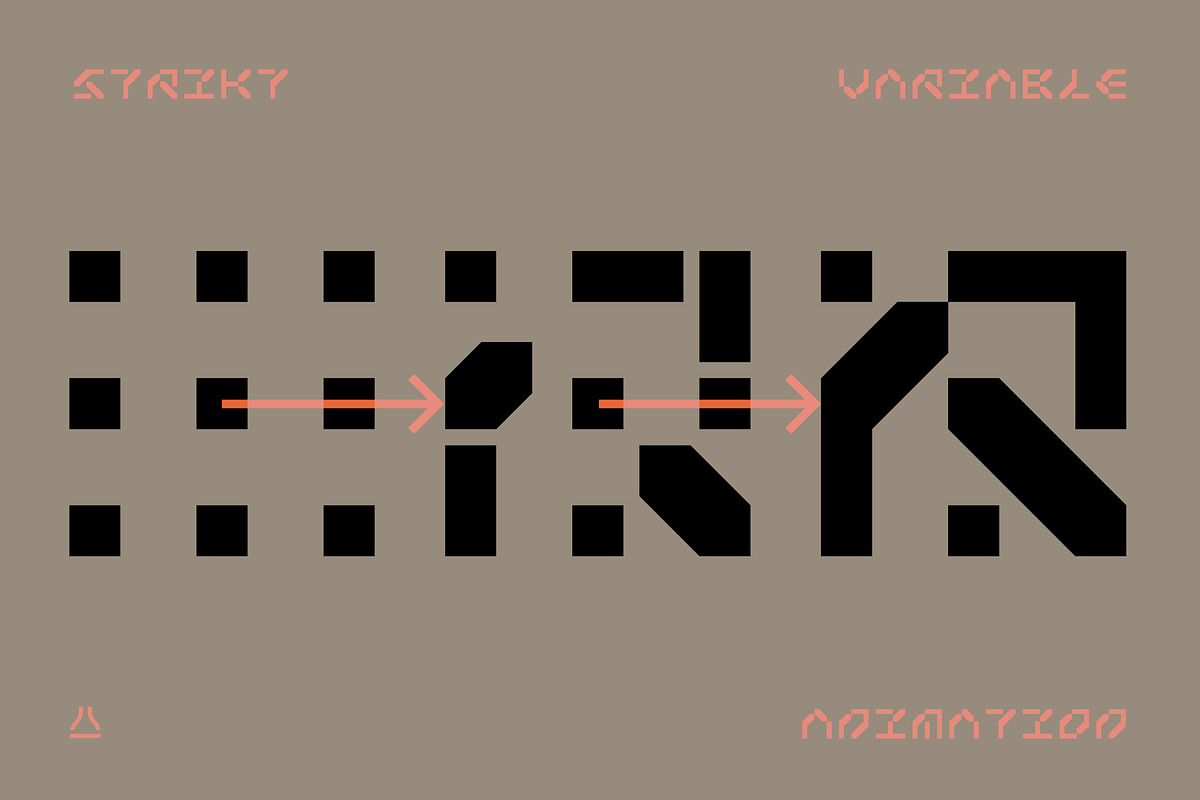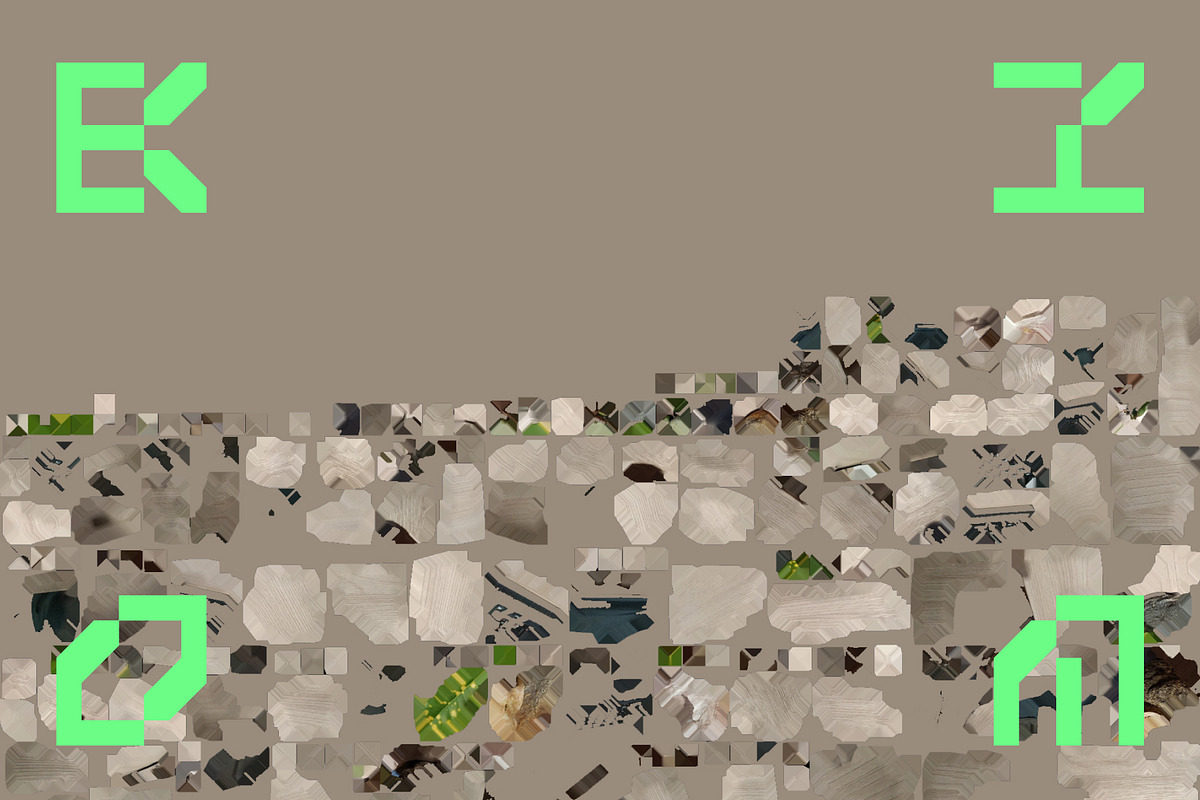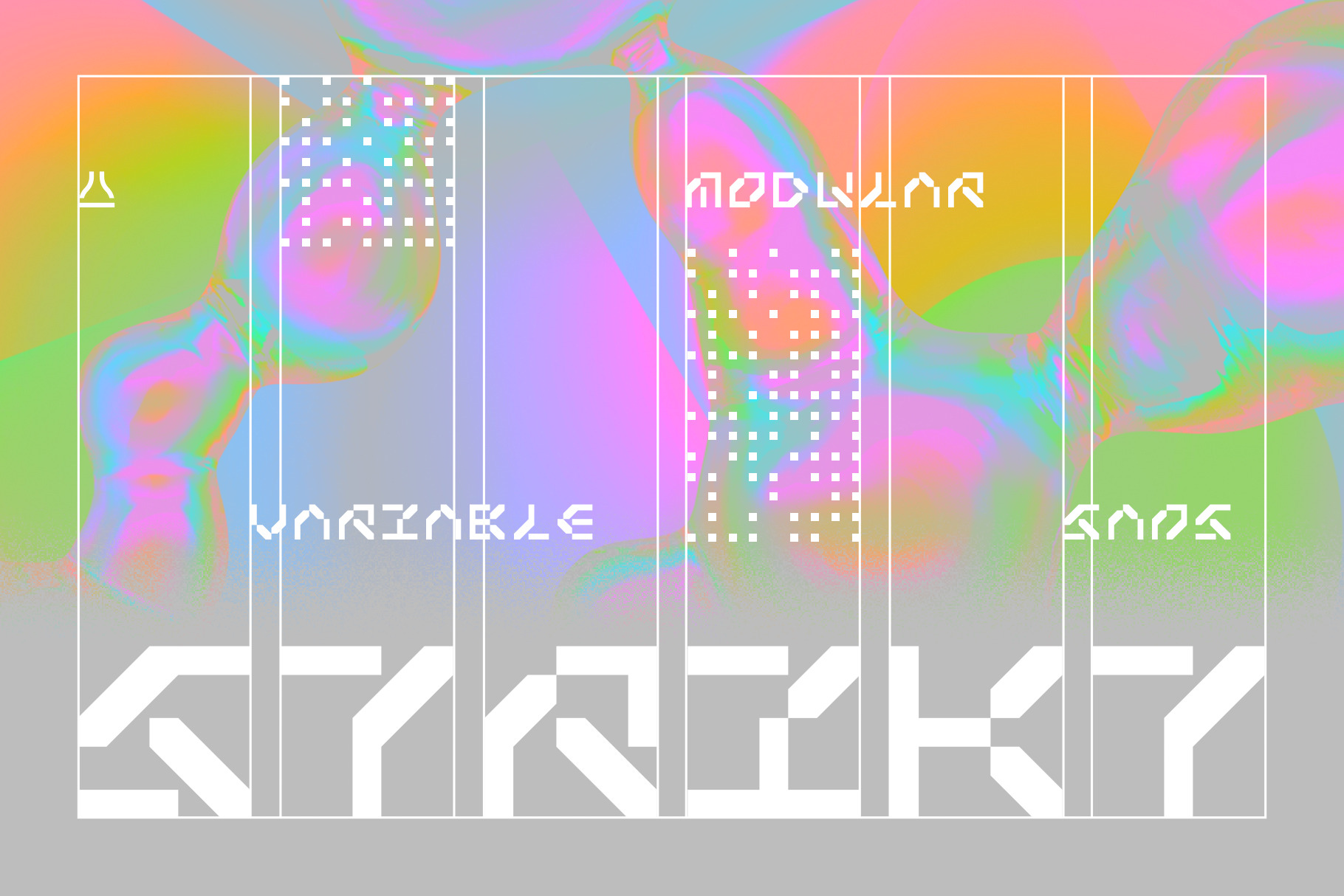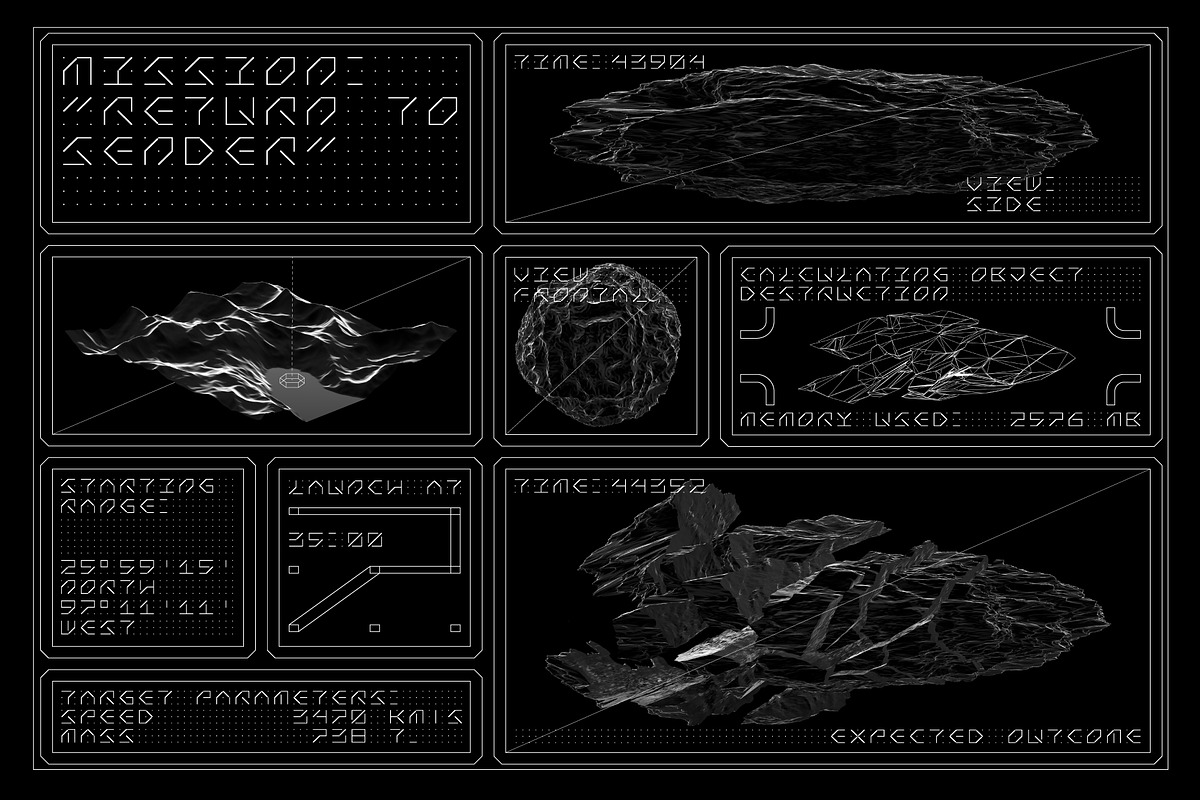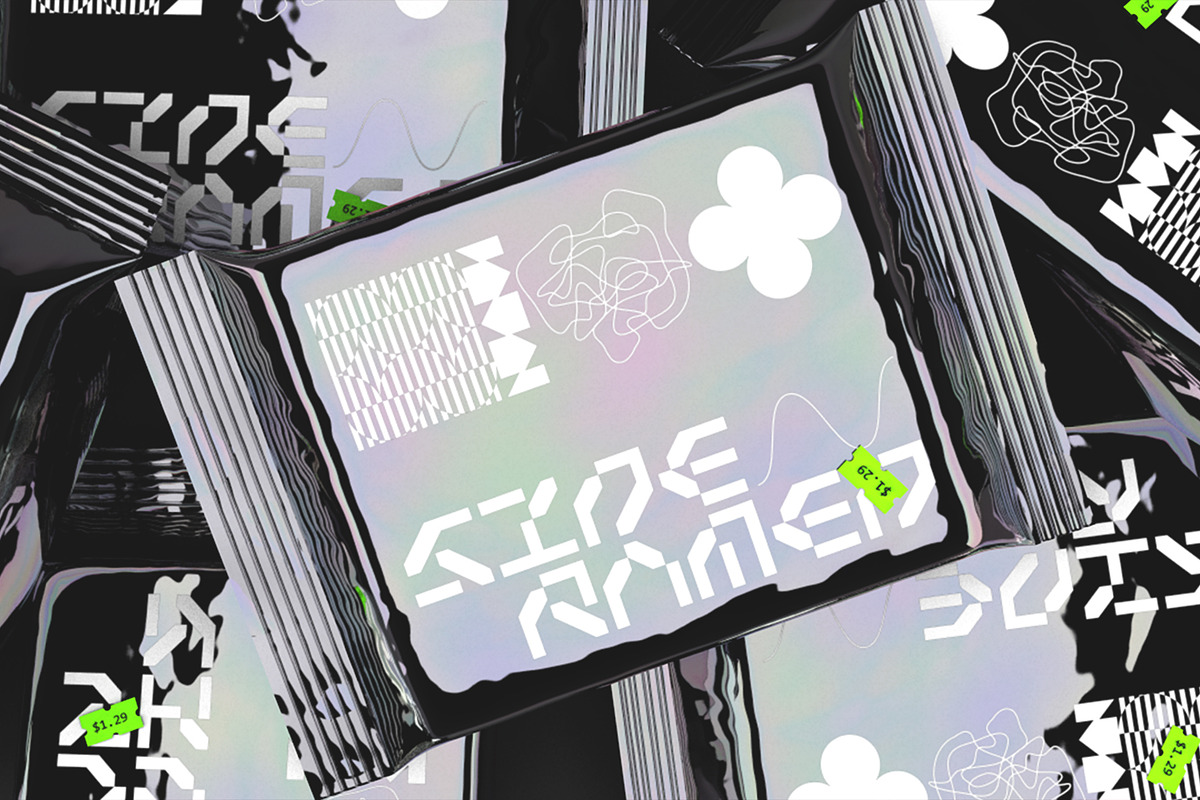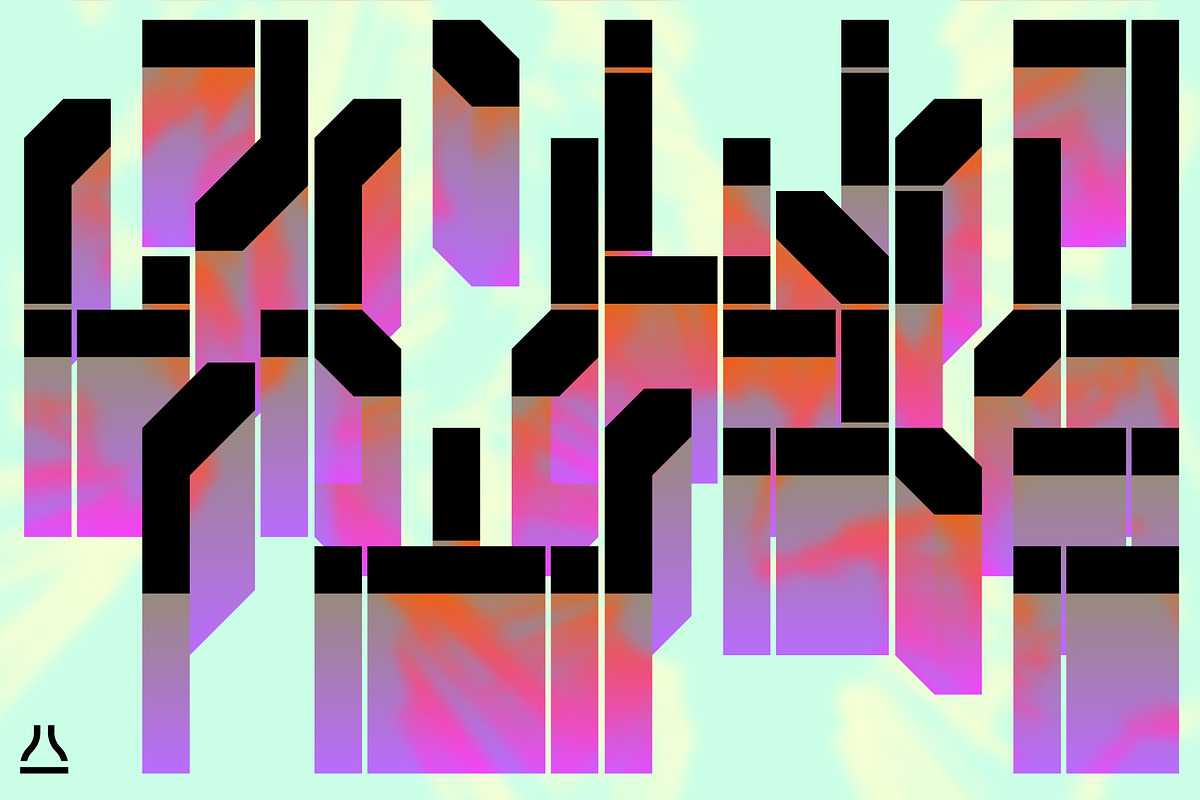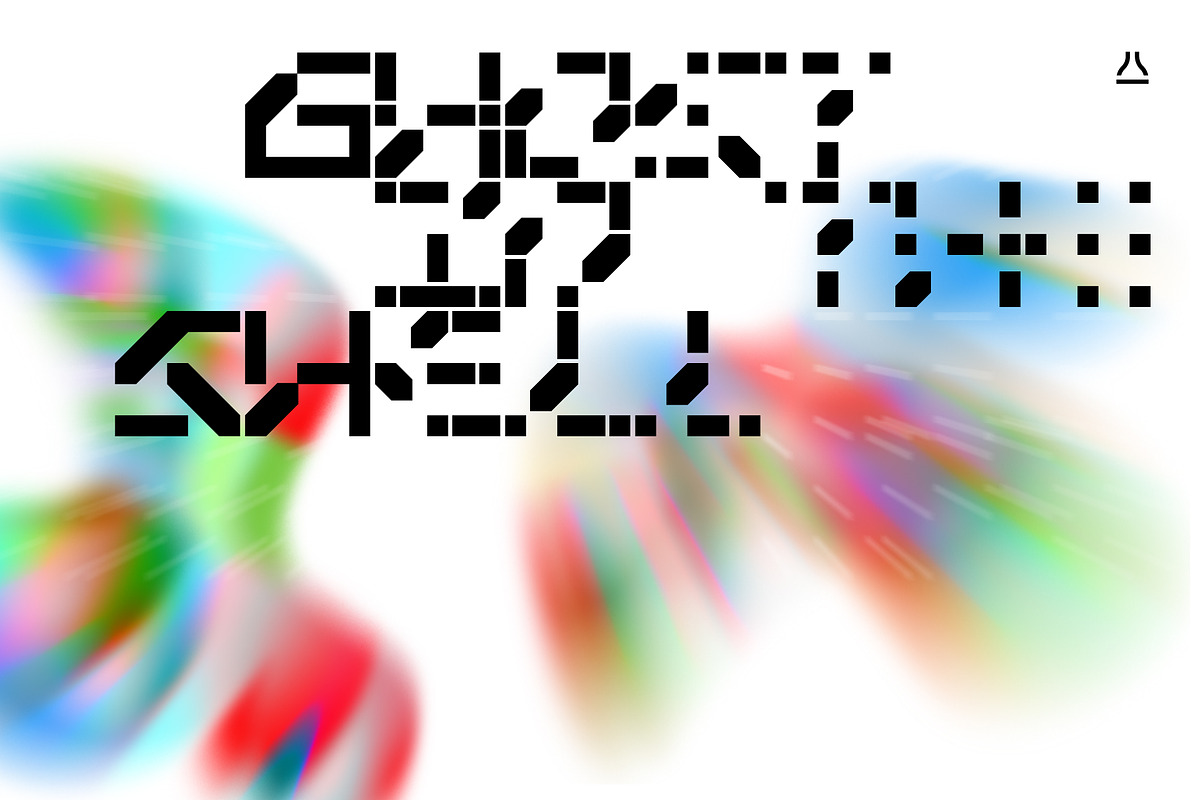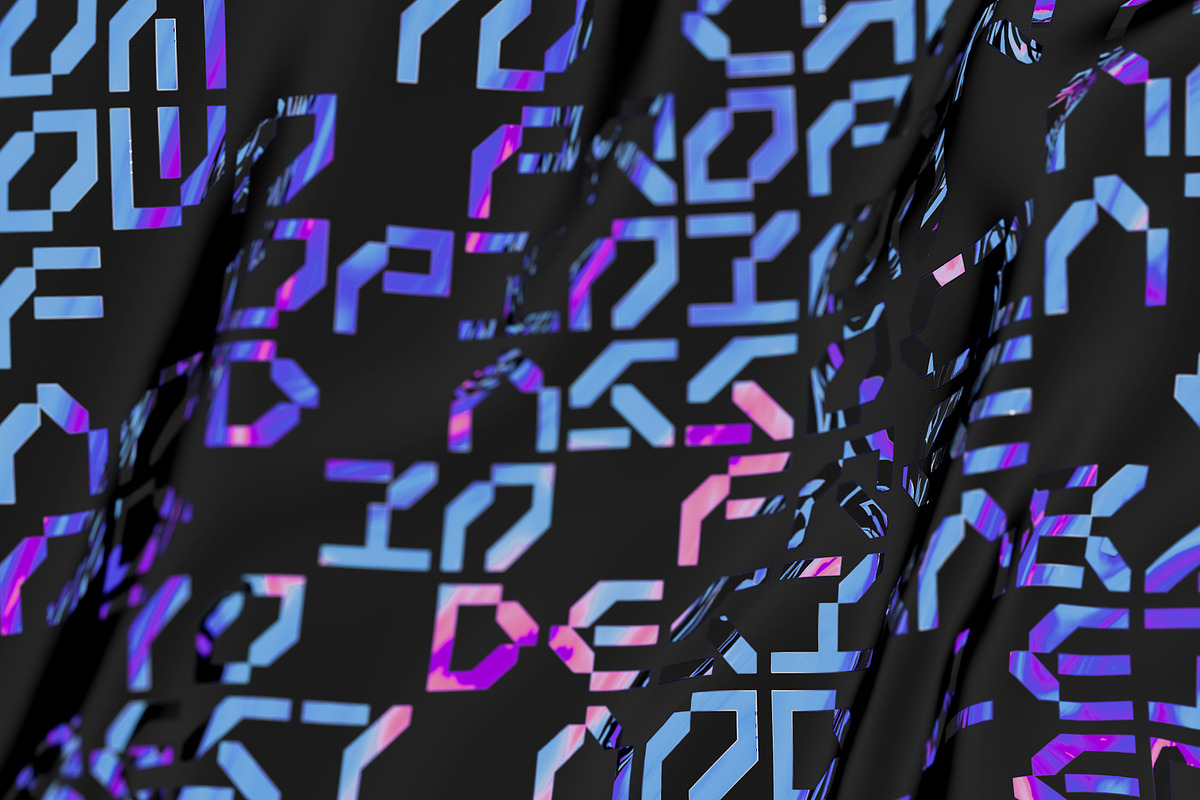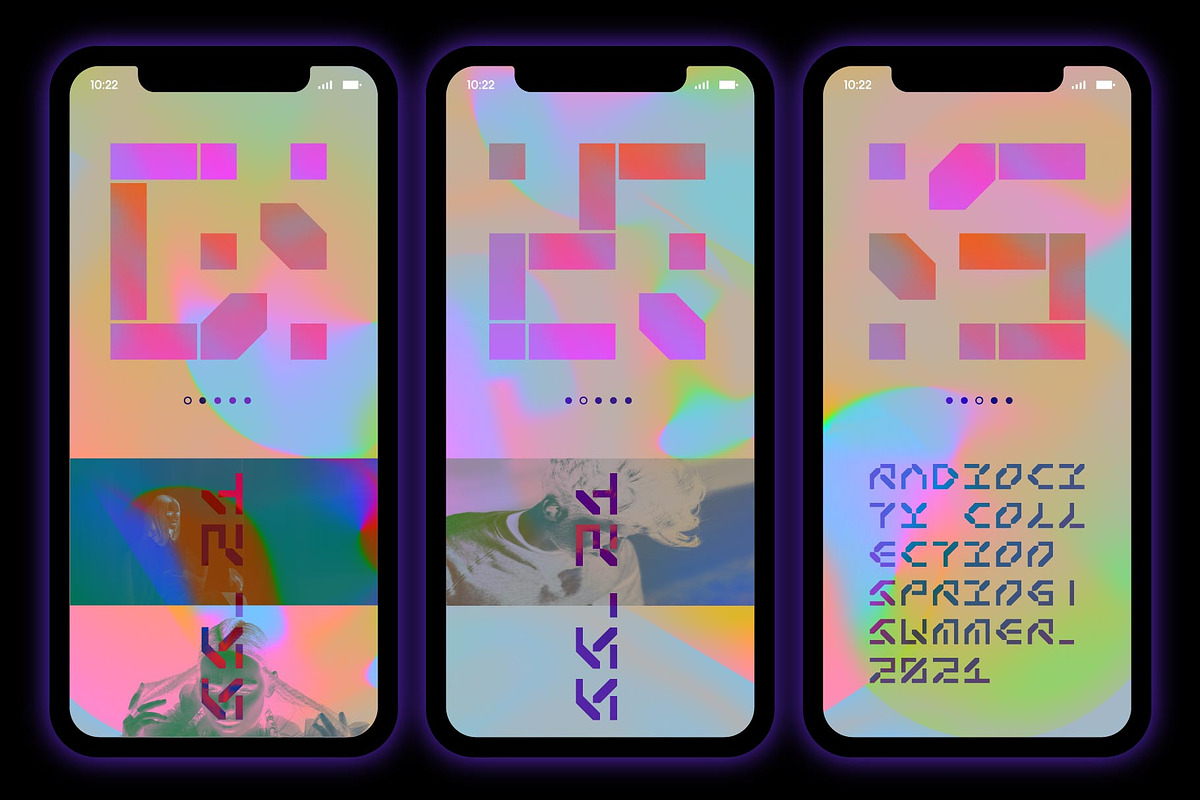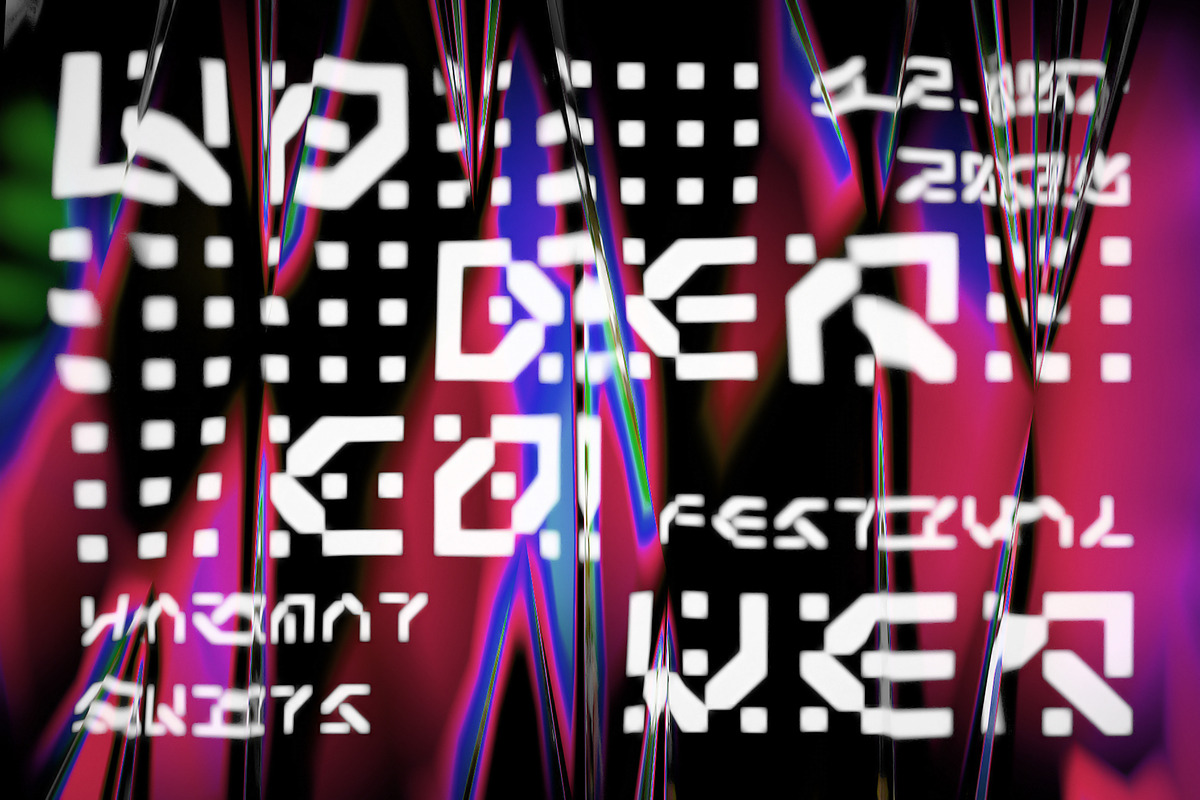
Strikt is a variable modular font family with 2 axes, build on a 3x3 grid. It was designed by Peter Bushuev and released in August of 2020.
It was inspired by the idea of utilizing the variable font technology to make a font with build-in animation potential.
Strikt has 2 variable axes: weight and animation. The first one is self-explanatory, but the animation axis is the main feature of the font. It allows you to morph any glyph to a 3x3 dot array and back. In Strikt Plus modification, this array is the same for each letter, which gives the possibility to transform one glyph to the other.
Strikt is also a very sturdy but unique display font. In "Plus" modification it gives even more sci-fi and techno vibes. And in light weights, Strikt becomes more architectural and gives the possibility to make unusual ornamental layouts.